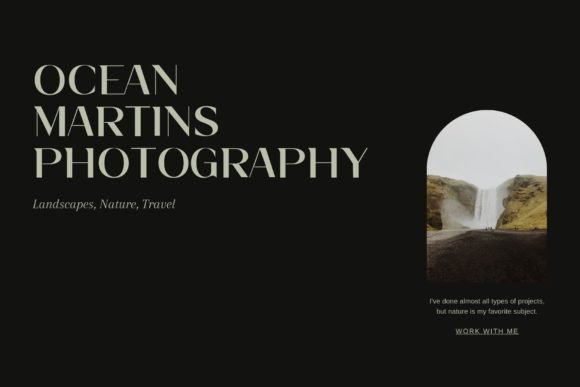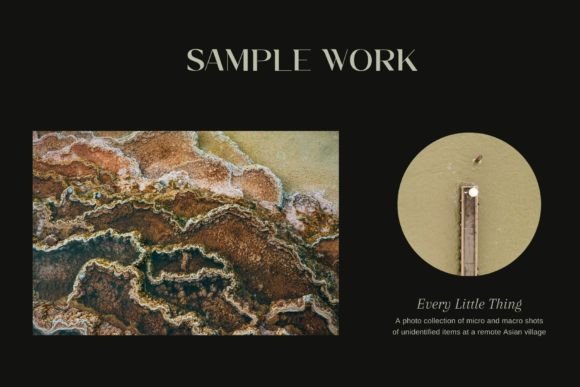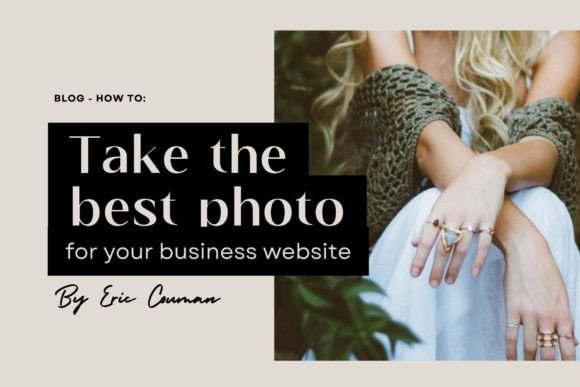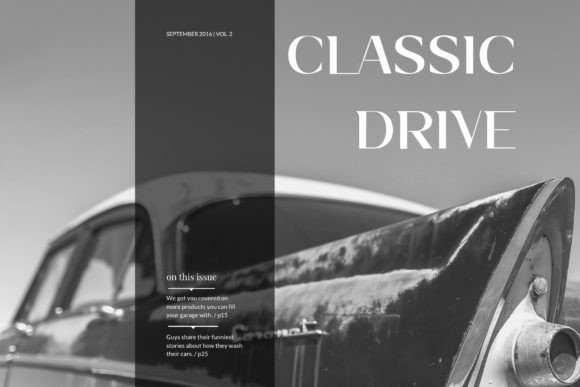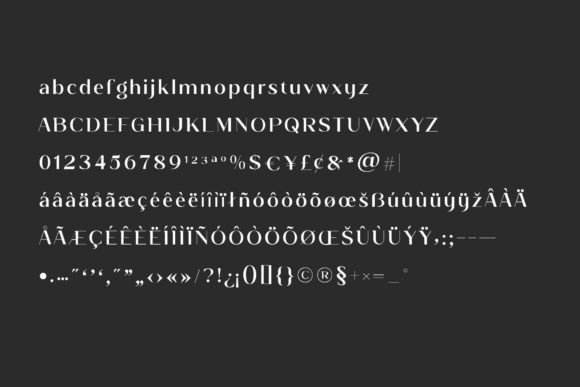
Giggity Font: Elevate Your Designs with Elegant Sophistication
In the world of typography, fonts play a crucial role in conveying the tone and personality of a design. For designers and crafters seeking to add a touch of sophistication and modern charm to their projects, the Giggity Font is an excellent choice. This elegant sans-serif font is designed to bring a level of refinement and poise to various design applications, from logos and headlines to branding and marketing materials.
The Essence of Giggity Font
Giggity Elegant Sans Serif font is a masterful blend of sleek lines, contemporary style, and classic elegance. Its design is carefully crafted to provide a timeless appeal that can enhance any project with a sense of luxury and sophistication. The font’s clean and modern aesthetic makes it highly versatile, suitable for a wide range of design needs.
Key Features of Giggity Font
- Elegant Sans-Serif Design: The font boasts a sleek, sans-serif design that exudes modernity and sophistication. Its clean lines and minimalist approach make it perfect for designs that require a touch of elegance.
- Versatility: Giggity Font is incredibly versatile, making it suitable for various design applications, including logos, headlines, branding, and marketing materials.
- Timeless Appeal: Unlike trendy fonts that may quickly become outdated, Giggity Font is designed with timeless elegance in mind. Its classic appeal ensures that your designs remain stylish and relevant for years to come.
- Easy to Read: Despite its elegant and sophisticated design, Giggity Font maintains excellent readability, making it suitable for both digital and print applications.
Applications of Giggity Font
The Giggity Font’s versatility and elegant design make it an excellent choice for a variety of design projects. Here are some of the key applications where Giggity Font truly shines:
- Logo Design: Create memorable and sophisticated logos that leave a lasting impression on your audience.
- Headlines and Titles: Add a touch of elegance to your headlines and titles, making your content stand out with a refined and modern look.
- Branding and Marketing: Enhance your brand’s image with a font that communicates luxury, sophistication, and professionalism.
- Digital and Print Media: Whether you’re designing for digital platforms or print materials, Giggity Font’s adaptability ensures it performs exceptionally well across different mediums.
Why Choose Giggity Font?
In a sea of fonts, Giggity Font stands out for its unique blend of modern charm and elegant sophistication. Here are a few reasons why designers and crafters are drawn to this exceptional font:
- Unique Aesthetic: Giggity Font offers a distinct aesthetic that can elevate your designs and set them apart from the competition.
- High-Quality Design: Crafted with attention to detail, Giggity Font is a high-quality design that reflects professionalism and expertise.
- Time-Saving: With Giggity Font, you can achieve a high-end look without spending hours on custom design. This saves you time and allows you to focus on other aspects of your project.
Giggity Elegant Sans Serif font is a powerful tool for designers and crafters looking to infuse their projects with a sense of sophistication and modern charm. Its sleek lines, timeless elegance, and versatility make it an excellent addition to any design toolkit. Whether you’re creating logos, headlines, or marketing materials, Giggity Font can help you achieve a level of class and refinement that elevates your designs to new heights. Discover the impact that Giggity Font can have on your projects and bring a touch of elegant sophistication to your work.